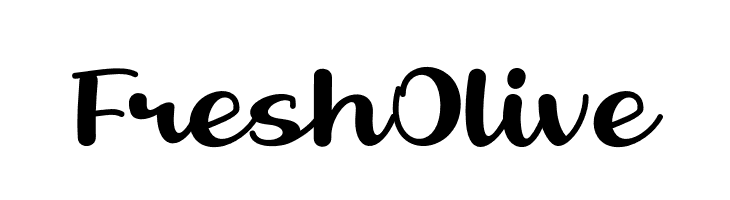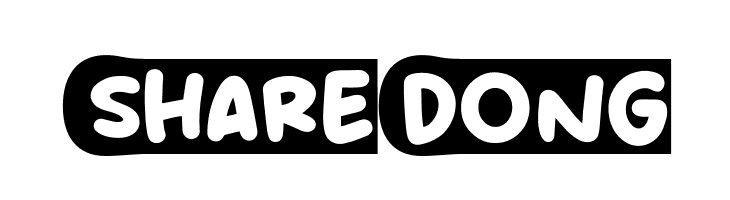
A playful, elegant script font with a handwritten touch.
A spooky, dripping decorative font ideal for horror themes.
A bold, hand-drawn font with a vintage, rustic style.
A modern cursive font with elegant, flowing lines and a handwritten style.
A flowing, cursive script with elegant, connected letters and subtle flourishes.
A playful, bold, hand-drawn font with outlined characters.
A bold, flowing script font with a playful and energetic vibe.
A playful, bold handwritten font with rounded, irregular characters.
An elegant script font with ornate floral embellishments and flowing lowercase letters.
A bold, modern font with high contrast and angular lines, perfect for impactful designs.
A playful, bold font with rounded edges and a whimsical style.
A bold, cursive font with a flowing, handwritten style.
A playful, handwritten script font with bold, curvaceous letters.
A bold, playful script font with flowing letterforms and decorative flair.
An elegant and decorative font with high contrast and intricate letterforms.
An elegant and artistic font with decorative flair and intricate details.
A geometric, abstract font with a futuristic and cryptic design.
A bold, jagged font with a rugged, hand-cut appearance.
A bold, futuristic font with a circuit-like pattern and strong contrast.
A bold, decorative font with pattern-filled letters, perfect for creative projects.
A bold, jagged font with a playful, crocodile-inspired design.
A decorative font with bold, rounded characters filled with floral patterns.
A playful, bold font with decorative elements and a hand-drawn style.
A playful, bold font with rounded, cartoonish letters and a bubble-like outline.
A bold, hand-drawn font with energetic, playful strokes and a modern edge.
A bold, playful font with rounded characters and a whimsical style.
A bold, brush-style font with dynamic, expressive strokes.
A bold, brush-style font with a dynamic and expressive appearance.